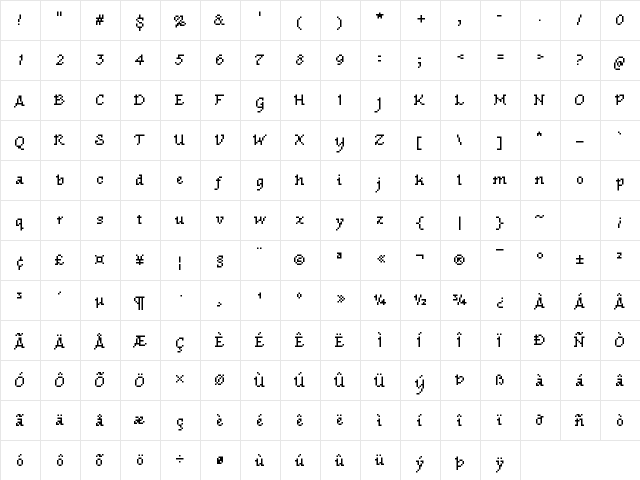
Piacevoli Medium
Design Context for Piacevoli Typeface
Piacevoli takes a measured approach to typography — its balanced proportions and neutral character make it a reliable workhorse for both digital and print work.
Pro Tip: Use Piacevoli in both headline and body roles to test its range before committing to a single application.